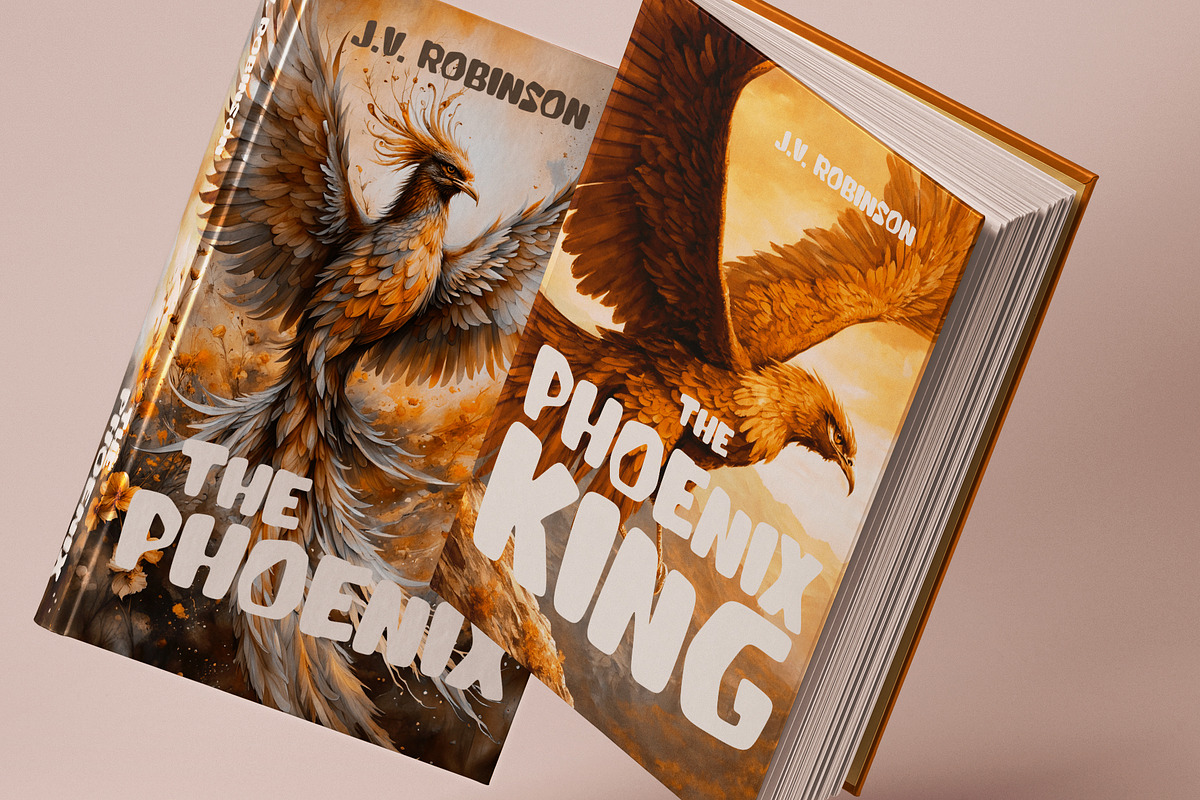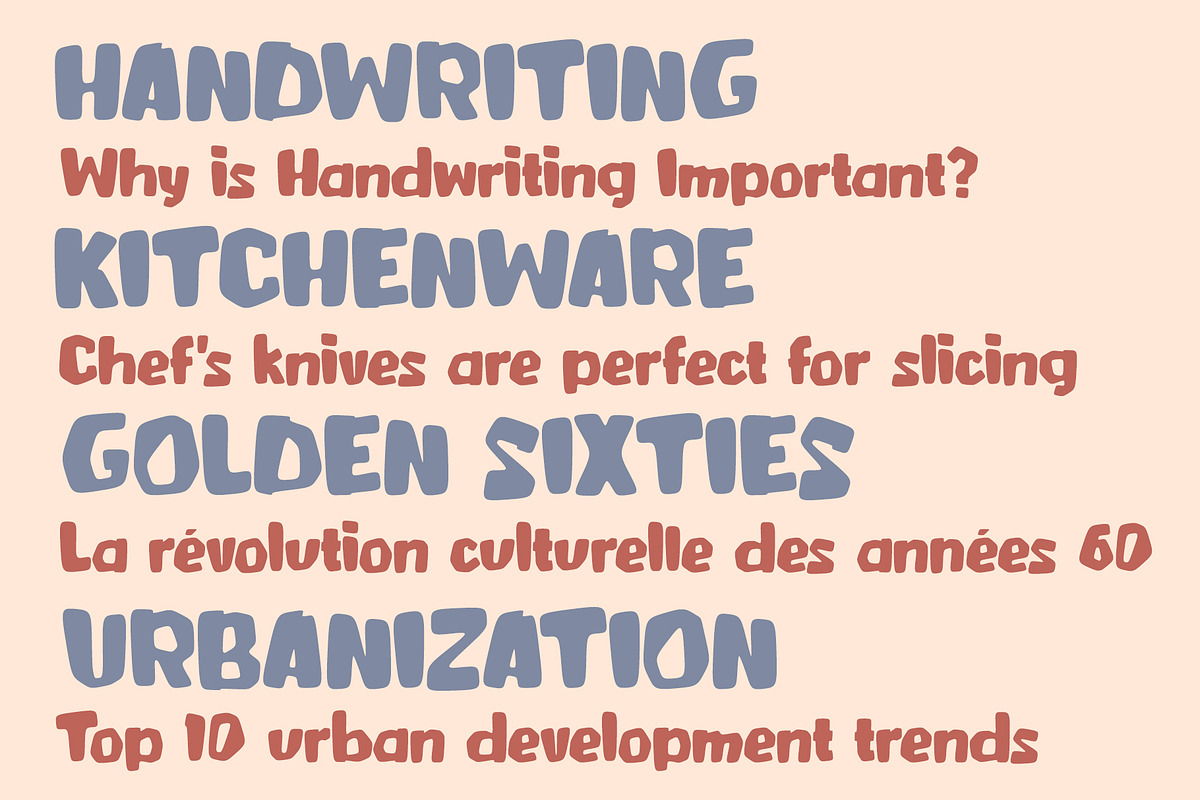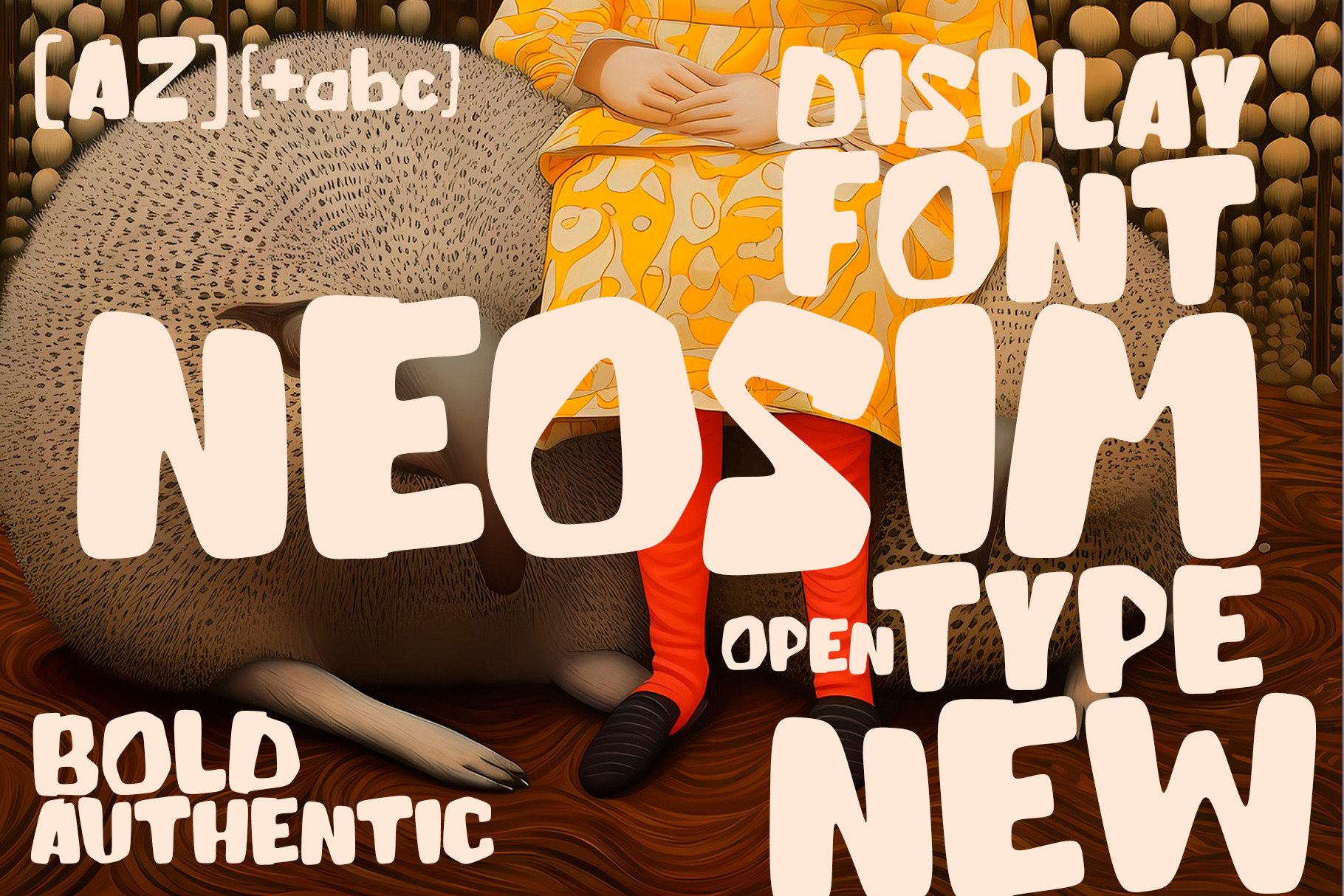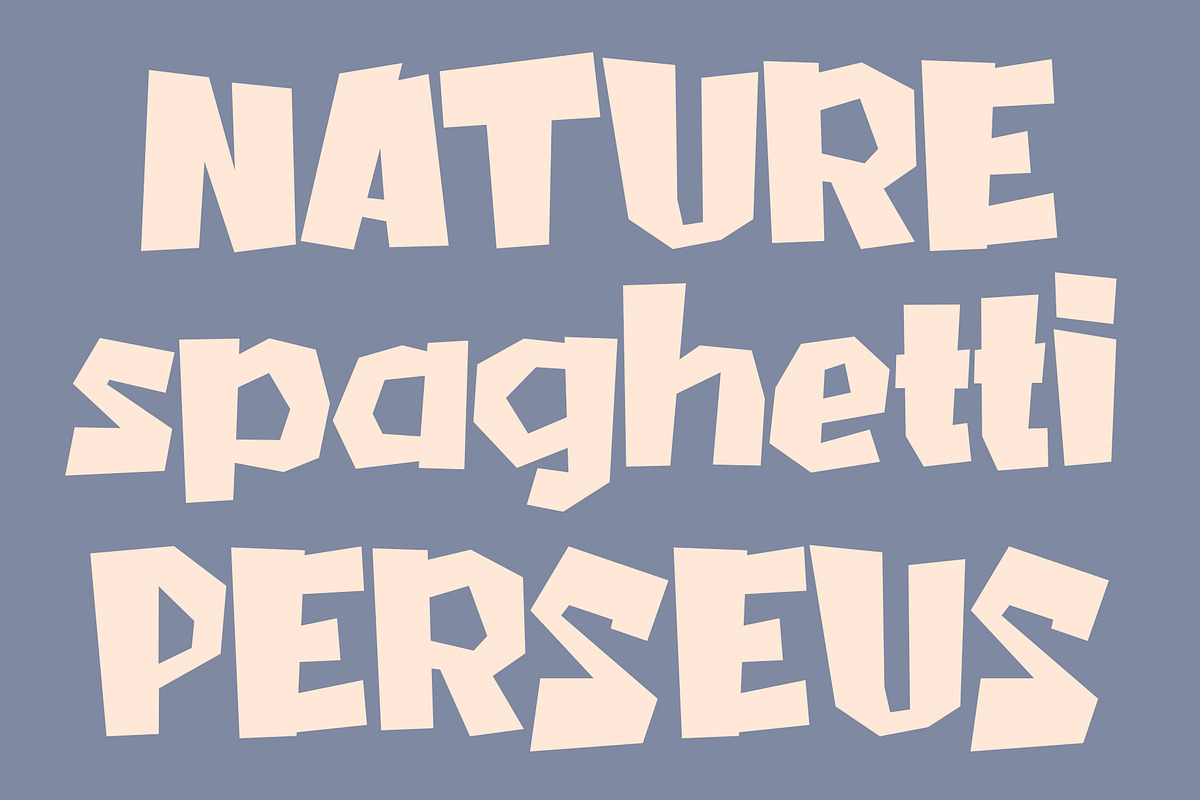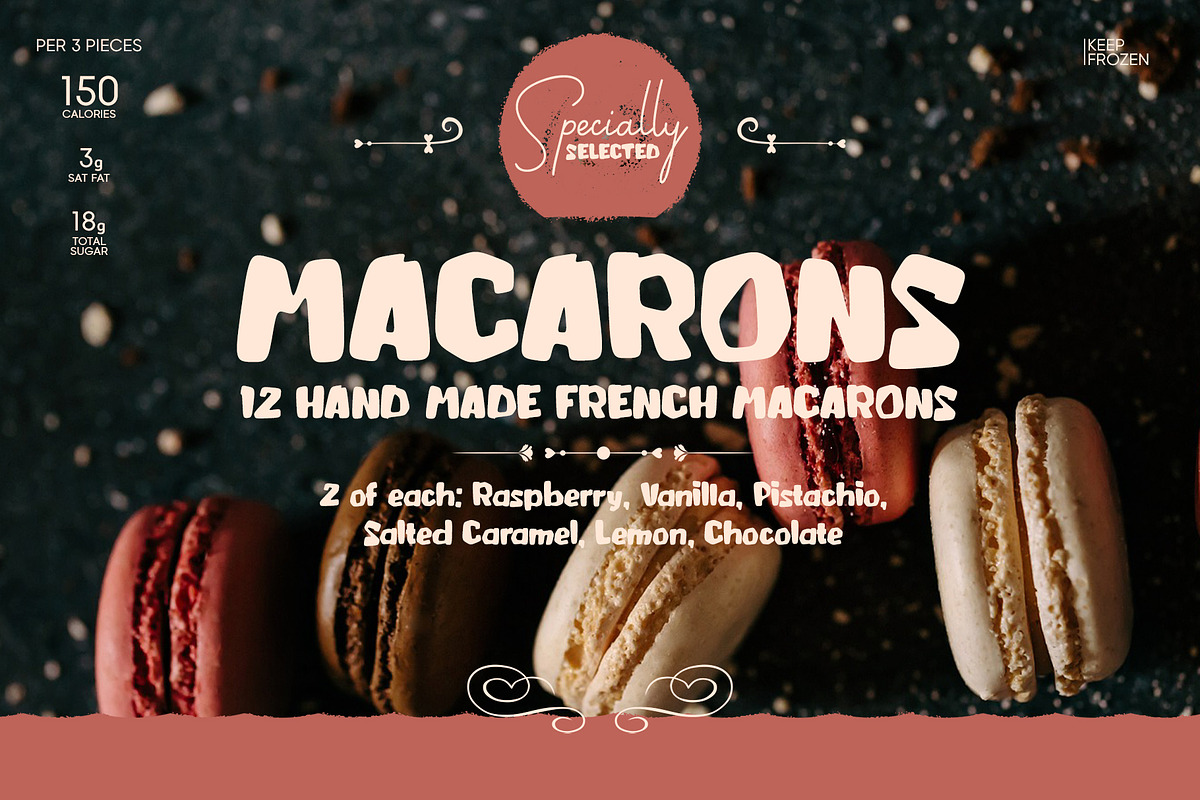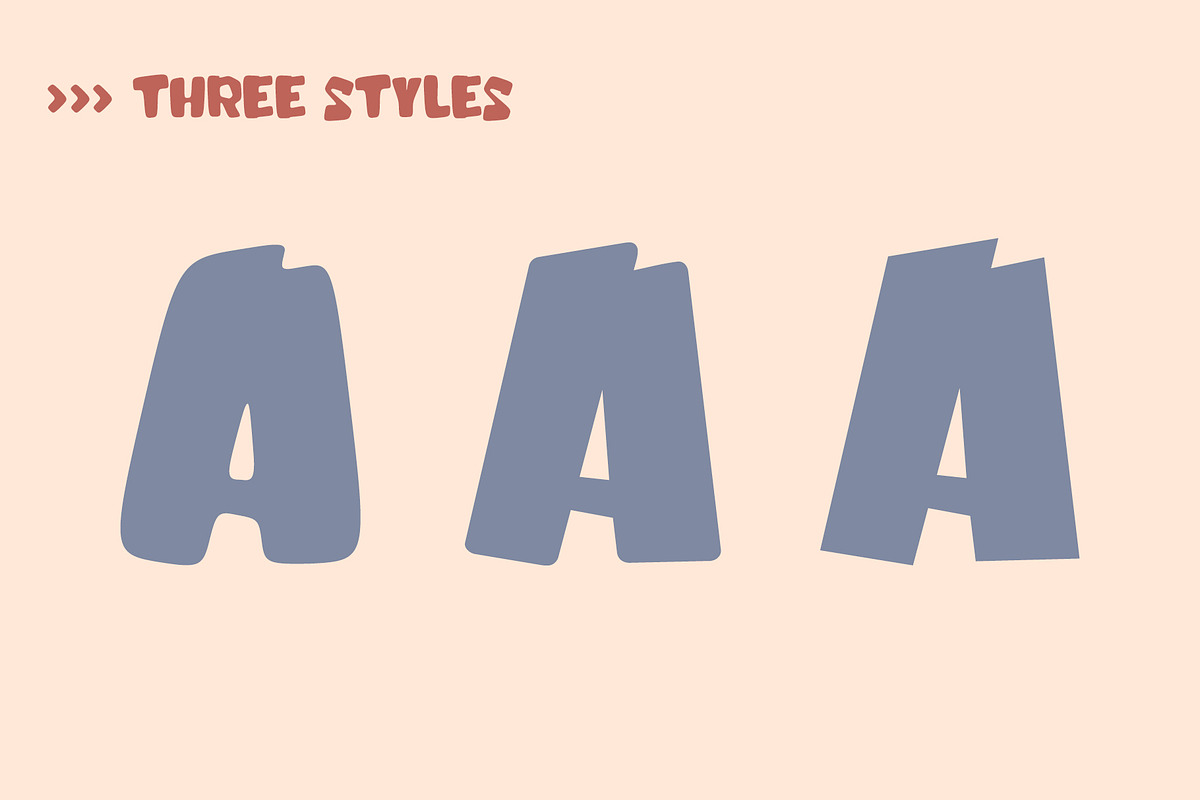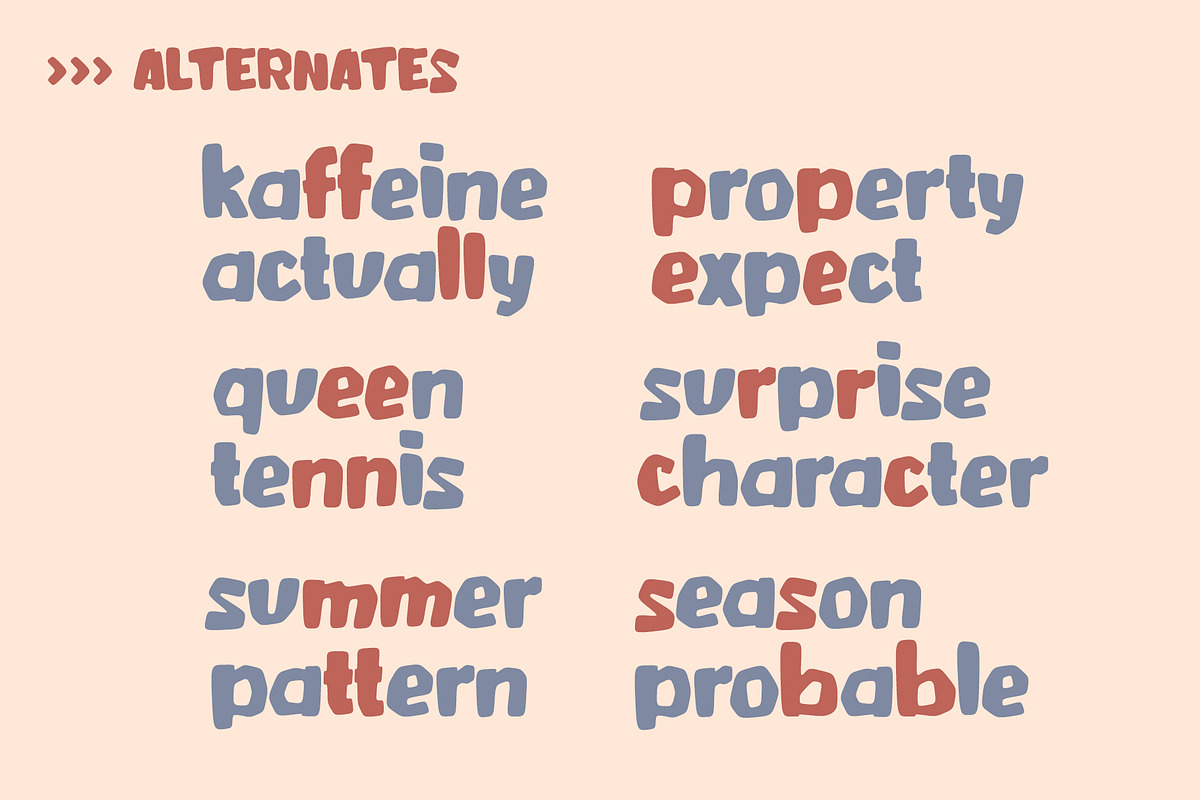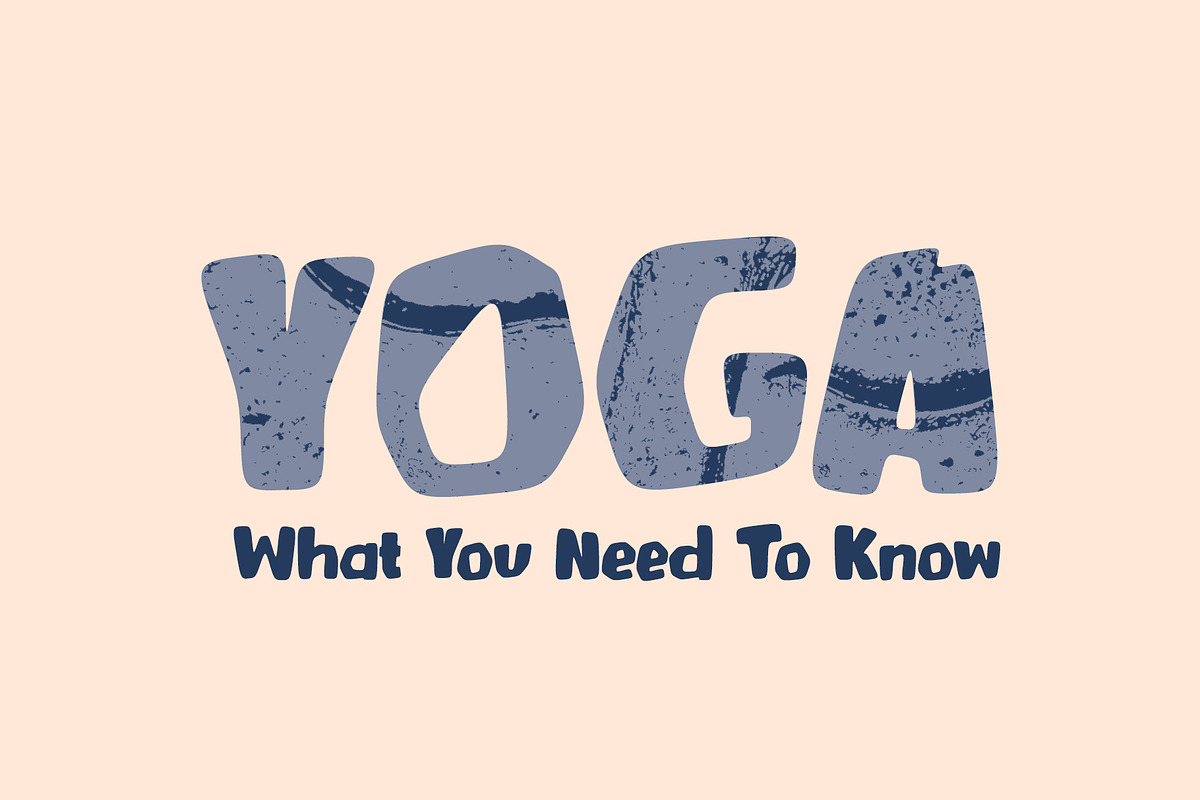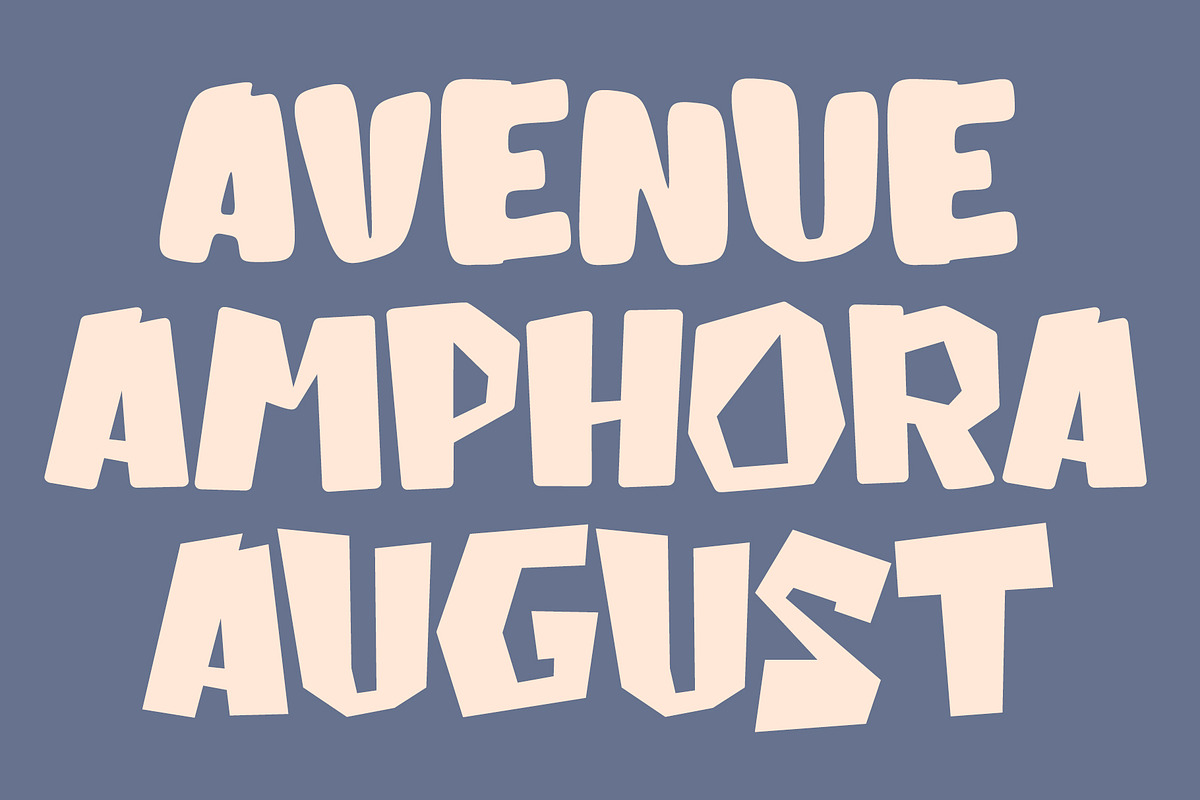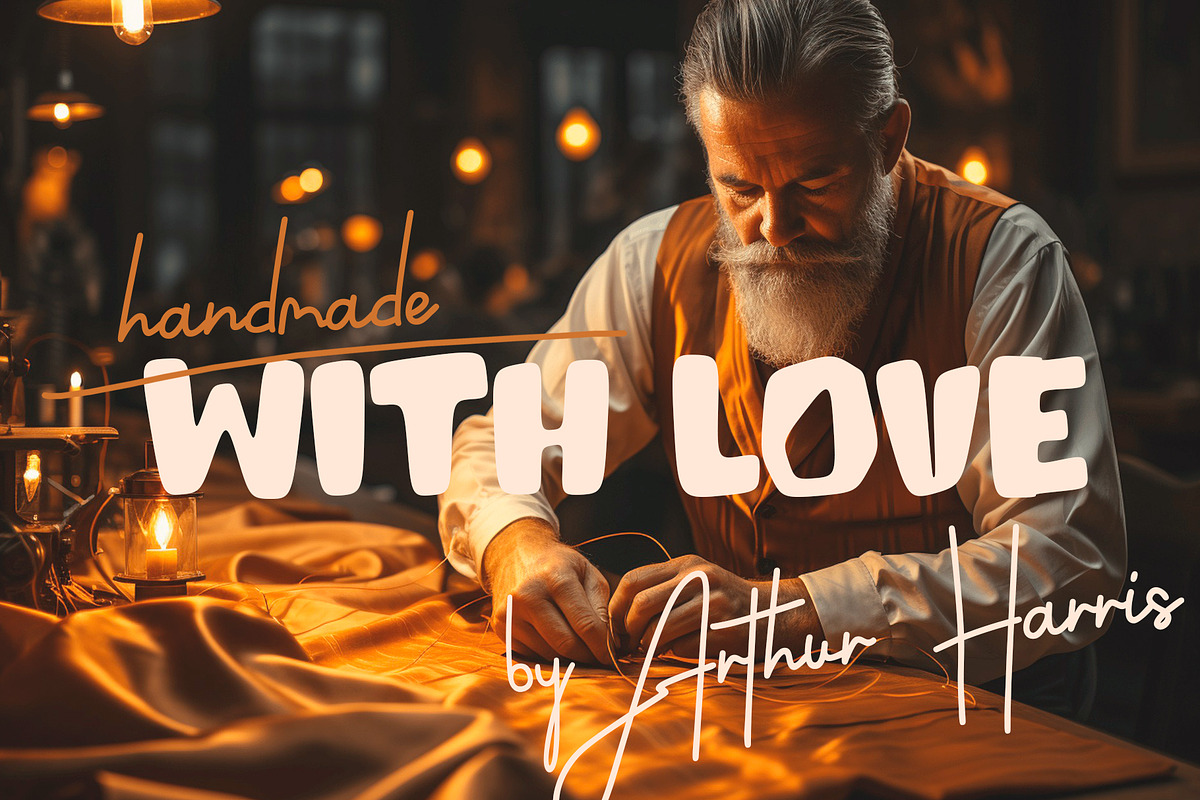
Neosim - Cute Display Font
A striking modern display font in three styles. Neosim is for any kind of design work. Every single letters have been carefully crafted to make your text looks beautiful. Created with creativity, passion and imagination.
PERFECT FOR: titles, greeting cards (Christmas, Birthday, Helloween, other holidays), logos, posters, phrases, cover album, gift shops, books, comics, presentation, Pinterest or Instagram, other.